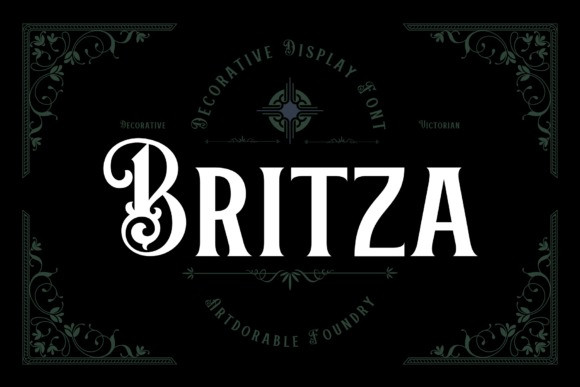
Britza Font
Britza is a cool, unique, Victorian-inspired display font. With its beautiful rhythm, this font will help you create gorgeous and classy compositions. Use it for branding projects, invitations, web graphics, cards, and many more!